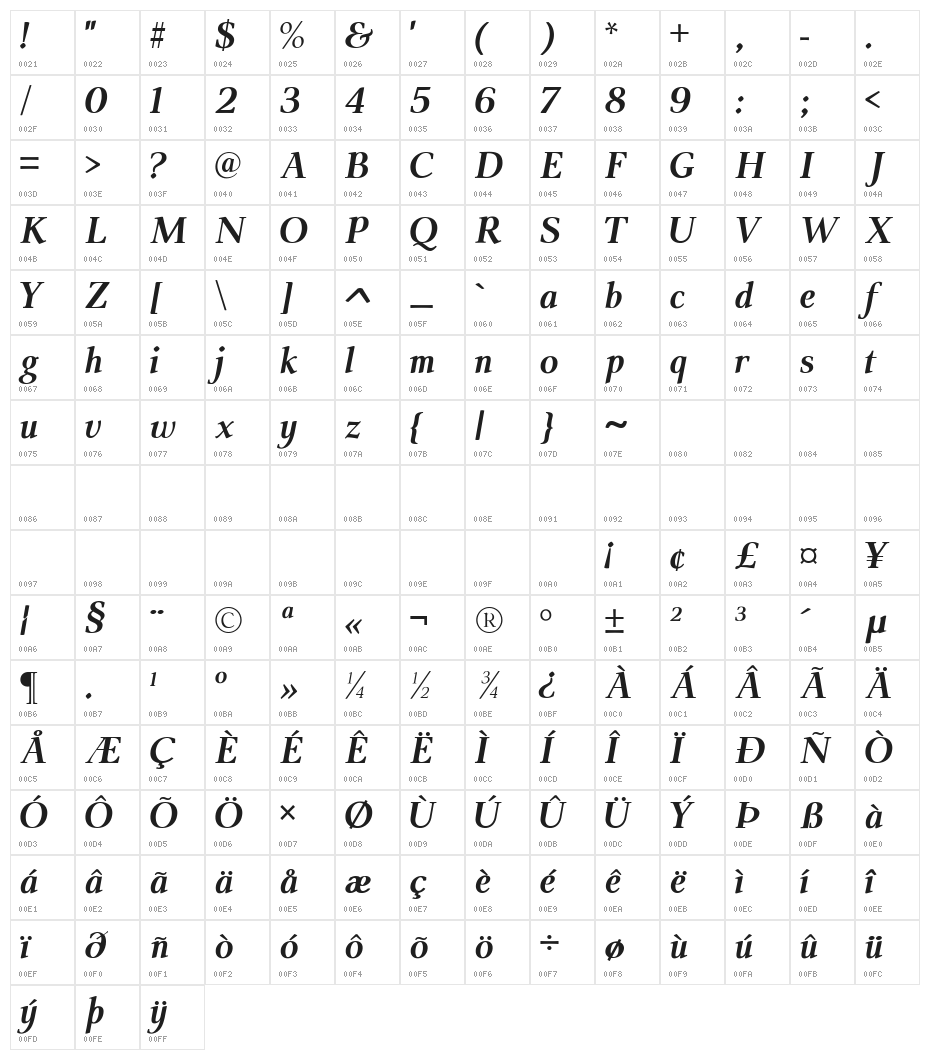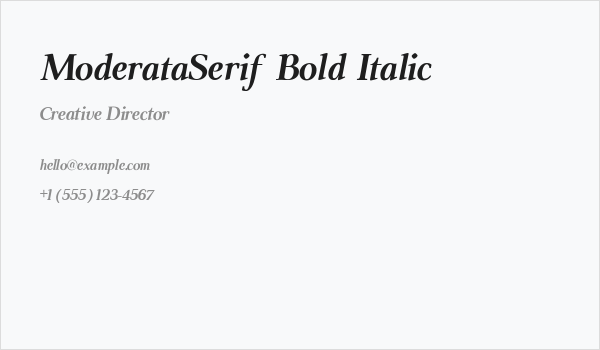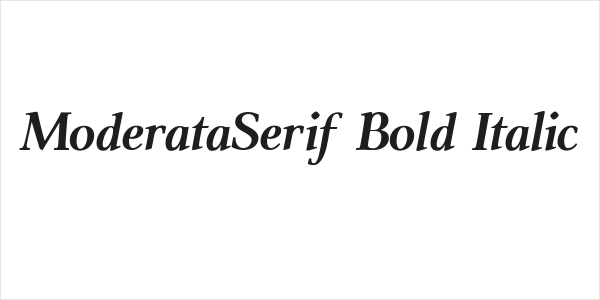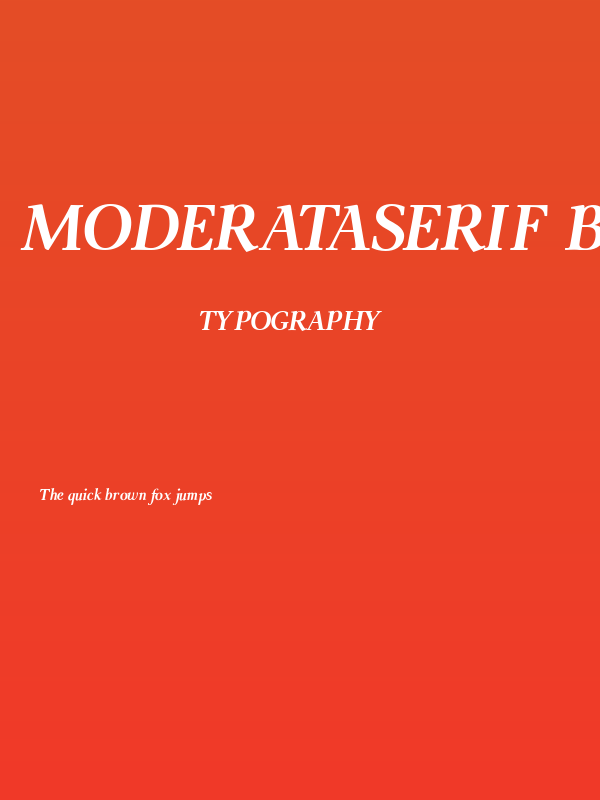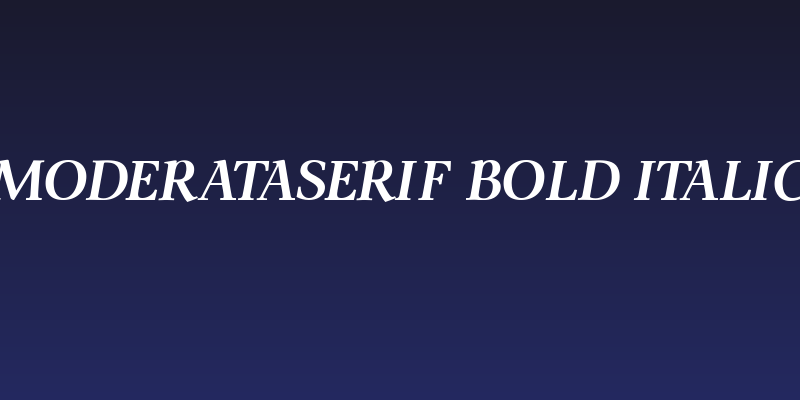
ModerataSerif Bold Italic Font
ModerataSerif Bold Italic Description
This font features a classic serif design with a bold and italicized style, offering a dynamic and elegant appearance. The characters are well-defined with a slight slant, enhancing readability while maintaining a sophisticated look. The uppercase letters are strong and commanding, while the lowercase letters provide a smooth and flowing contrast. Numbers are clear and distinct, making them suitable for various applications. The special characters are crafted with attention to detail, ensuring consistency throughout the typeface.